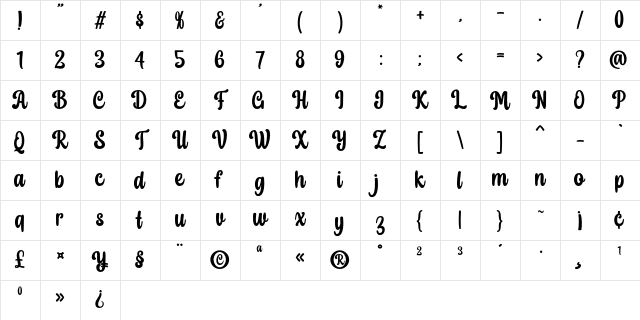
Complete Christmas Okinawa Regular glyph index. Displaying only characters natively supported by Christmas Okinawa Regular font.
Christmas Okinawa is a composed and adaptable typeface that performs quietly and consistently across a wide range of design contexts.